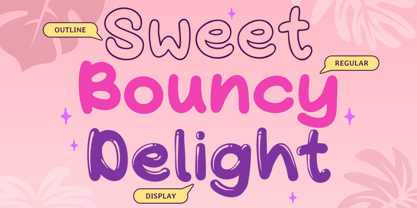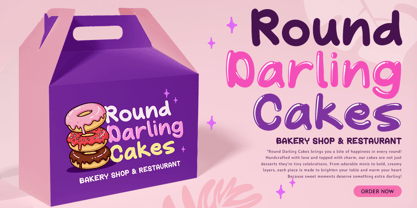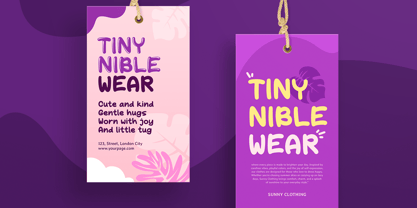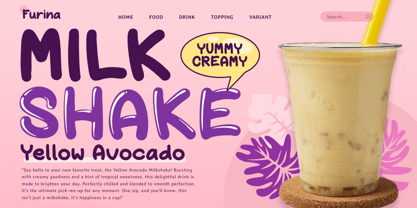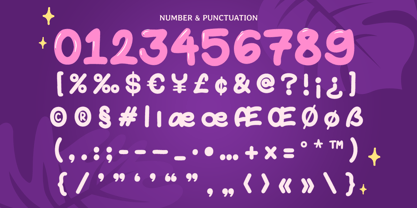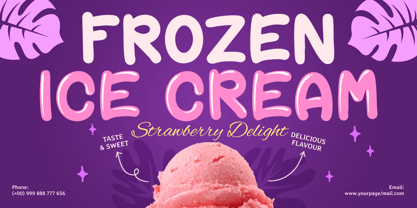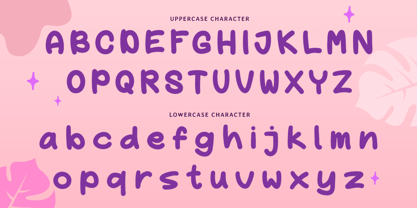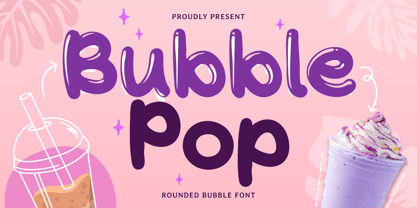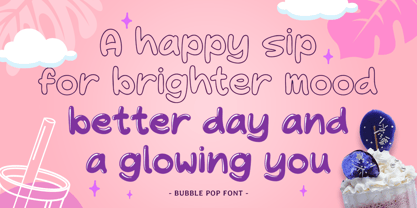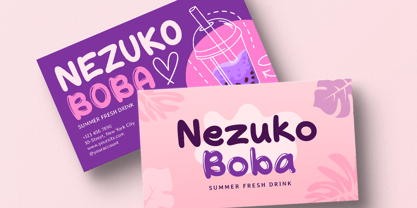
Bubble Pop
Die Schriftfamilie Bubble Pop wurde von Zamroni Hamzah entworfen und von Sensatype Studio veröffentlicht. Bubble Pop enthält 3 Stile und Familienpaketoptionen. Mehr über diese Familie
BUBBLE POP is a rounded bubble font designed to bring joy, energy, and playful personality into your creative projects. With its soft inflated letterforms, cheerful curves, and bold display presence, this font creates a fun visual impact that feels friendly, expressive, and instantly memorable. Perfect for designers looking for a playful display typeface with strong character and approachable charm.
Perfect for kids branding, snack packaging, toy labels, cartoon posters, playful logos, social media graphics, merchandise, café menus, birthday invitations, and colorful promotional materials, BUBBLE POP delivers a delightful visual tone that stands out across both print and digital media. Its rounded bubble style makes it especially effective for food branding, fun packaging, and youthful brand identities.
Whether you're creating cheerful headline typography, playful advertising visuals, or bold product packaging, BUBBLE POP offers a versatile and energetic design solution. This rounded bubble font helps transform ordinary text into expressive visual storytelling with a fun and engaging personality.
BUBBLE POP – Rounded Bubble Font Features
• Soft rounded bubble-inspired character design
• Playful display style perfect for kids and fun branding
• Ideal for logos, packaging, posters, menus, and social media
• Bold and cheerful letterforms with excellent visual impact
• Includes uppercase, lowercase, numerals, and punctuation
• Great for digital and print creative projects
• OpenType features for flexible typography use
Bring joyful personality to your creative designs with BUBBLE POP – the perfect playful font for bold and cheerful branding. 🎈